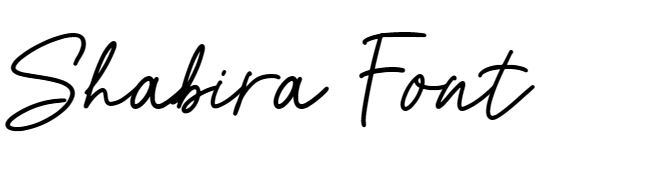
Shabira Font
Shabira is a handwritten font created by Dini Yulfiani Kartini (2022). It has a casual, written-with-a-pen look that makes designs feel personal. It's a free download, and you can try it with your own text in the preview above first.
Shabira Font Details
• Designer: Dini Yulfiani Kartini
• Year: 2022 (from the copyright line in the font)
• Category: Handwritten font
• Font styles: 1 (Regular)
• Weight: Regular (400)
• Glyphs: 241
• Characters: A–Z, a–z, 0–9 and basic punctuation
• Languages: English, Spanish, French, German, Portuguese and Italian
• OpenType features: Ligatures
• Kerning: None in the file
• Version: 1.00
What You Can Type With Shabira
You get every letter from A to Z in both cases and all the numbers from 0 to 9, which means Shabira can handle full sentences, dates and prices. Everyday marks like &, !, ? and @ are there too. Thanks to its accented letters, it also works for Spanish, French, German, Portuguese and Italian, not just English.
Ligatures and Smart Letters in Shabira
Where Shabira Works Best
Designers usually reach for fonts like Shabira when they're making greeting cards, journal pages and friendly social posts. Its lowercase letters are small compared to the capitals, so set it a size or two bigger than usual. The file has no kerning data, so in logos and big titles check pairs like AV, To and Wa and tighten the spacing by hand. Set it a bit larger than you would a normal text font. Handwriting styles lose their charm once they get too small to read comfortably.
Does Shabira have ligatures?
Yes. Shabira has ligatures that turn on by themselves in most design apps and browsers, so you don't need to do anything special.
Does Shabira support accented letters?
Yes. Shabira includes the accented letters needed for Spanish, French, German, Portuguese and Italian, so it works for more than just English.